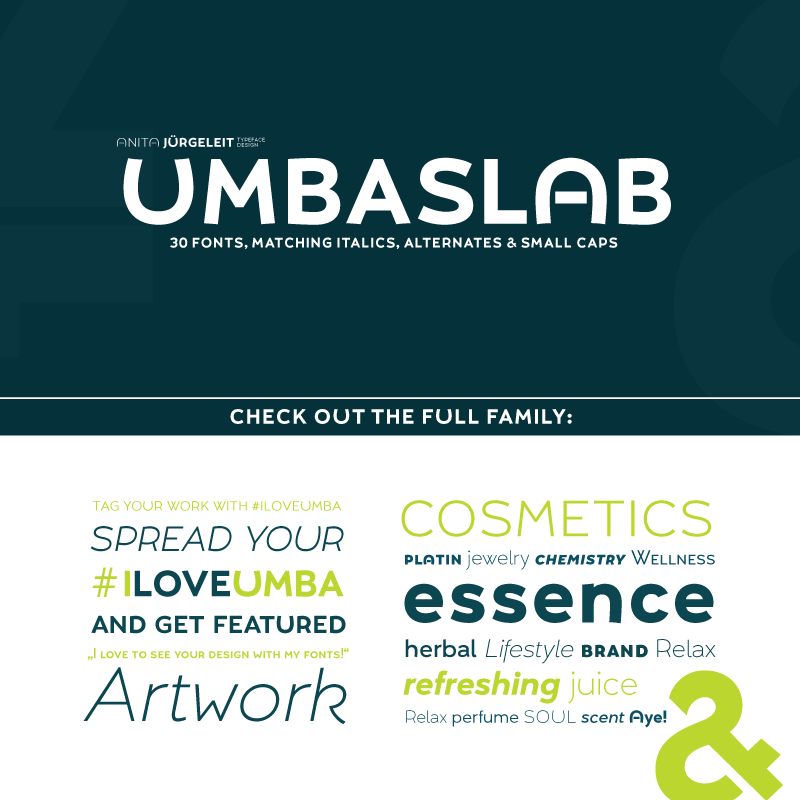
Font name: | Umba Sans |
Author: | Anita J�rgeleit |
Hello there! I am happy to present to you a free bold style of the UMBA Sans family. UMBA Sans was created as a joyful solution typeface for editorial, titling and branding. The wide shaped curves show a new aesthetic appeal in an unexpected pleasant way. Enjoy Umba and it helps you pushing your design up to the next level. Umba Sans Bold is 100% free for private and commercial use. All the features you'll get +++ 30 styles / 5 weights +++ 583 glyphs +++ fractions +++ subscript +++ superscript +++ old style figures +++ tabular figures +++ stylistic alternates +++ ff-ligatures Would you like to see more of how UmbaSlab improve your design? Let�s get in touch! Instagram @anitajuergeleit +++ Twitter & Dribbble @AnitaJott +++ Facebook AnitaJuergeleitTypefaces Check also out the full font family! www.anitajuergeleit.de |